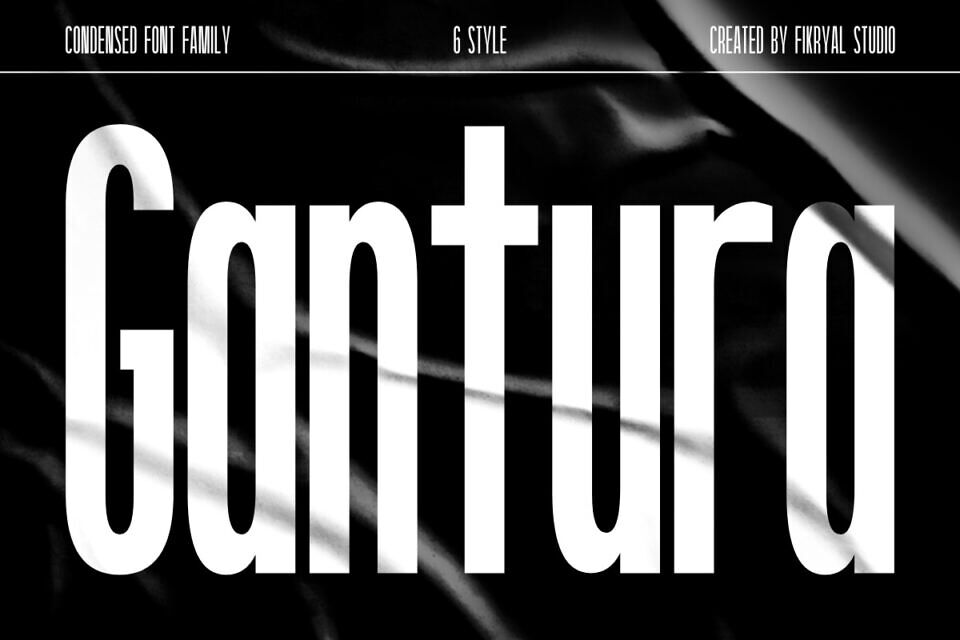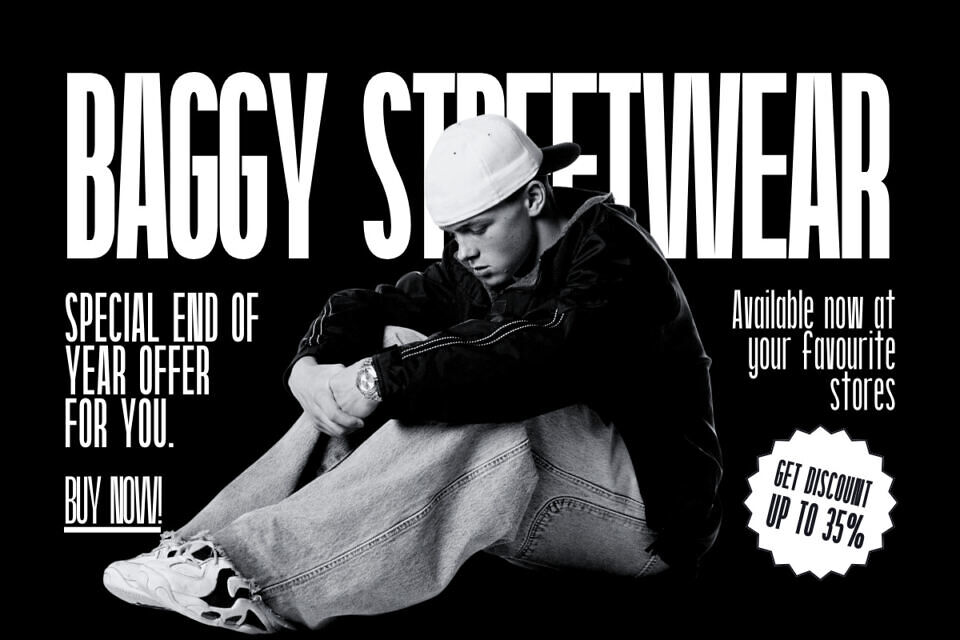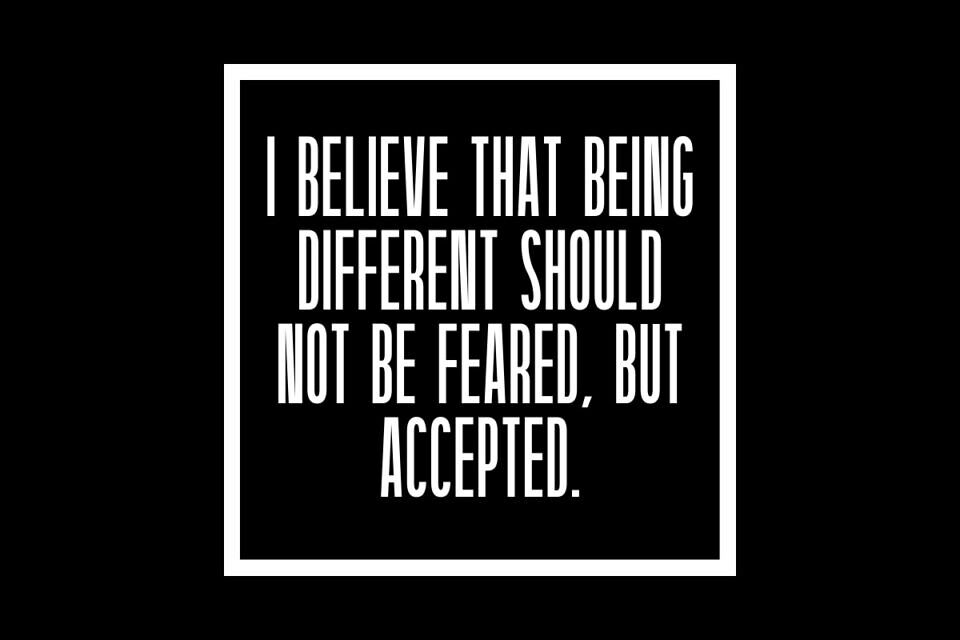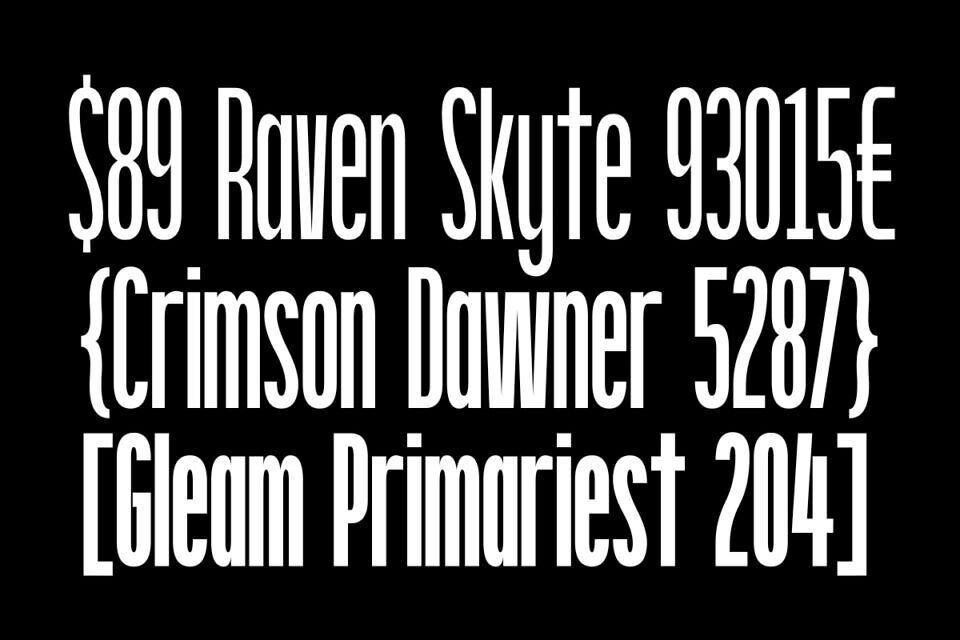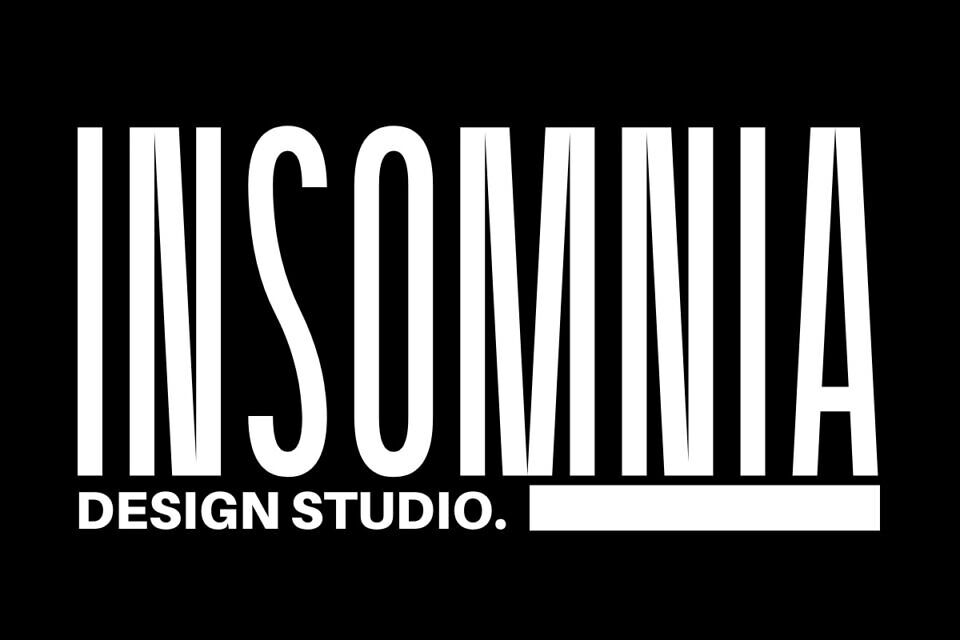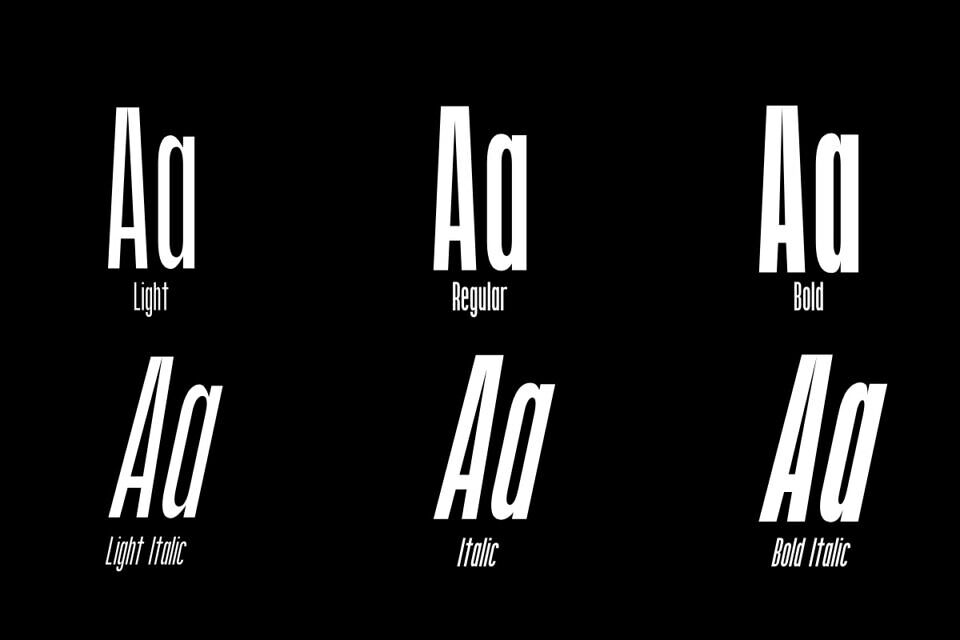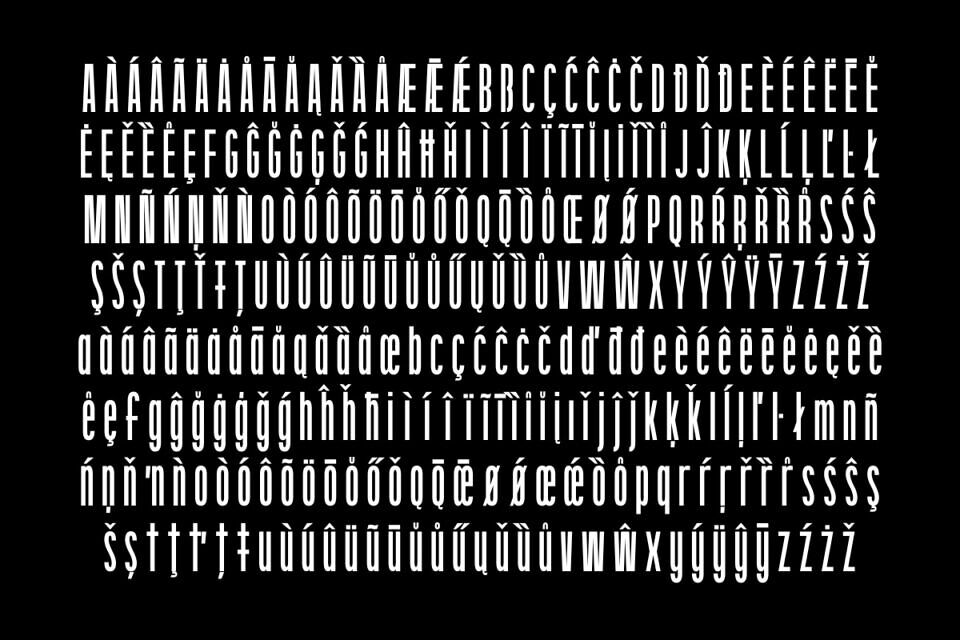
Gantura is a sleek and modern condensed font family designed to enhance any creative project with six versatile styles Light, Light Italic, Regular, Italic, Bold, and Bold Italic.
Gantura delivers a perfect blend of style and functionality. This typeface is ideal for a wide range of applications, including branding, logo design, packaging, editorial layouts, and web design. Its compact structure ensures efficient space usage while maintaining exceptional clarity and impact, making it a go-to choice for both bold headlines and subtle details.